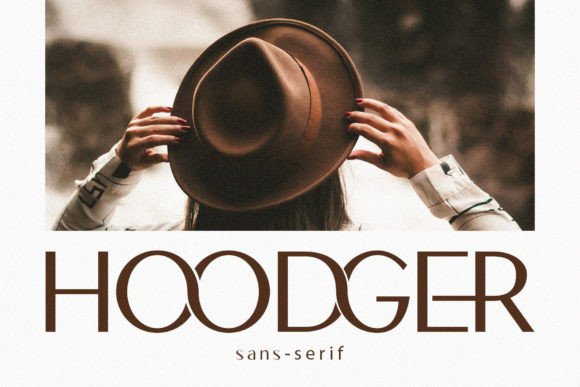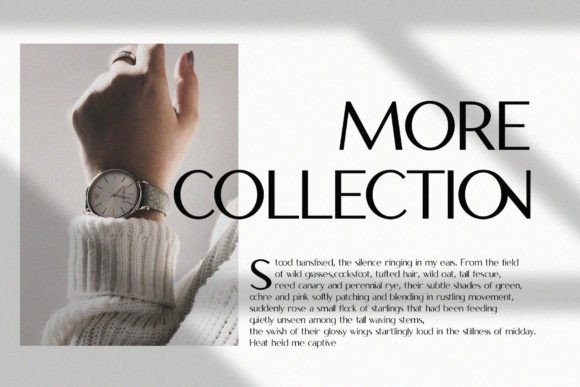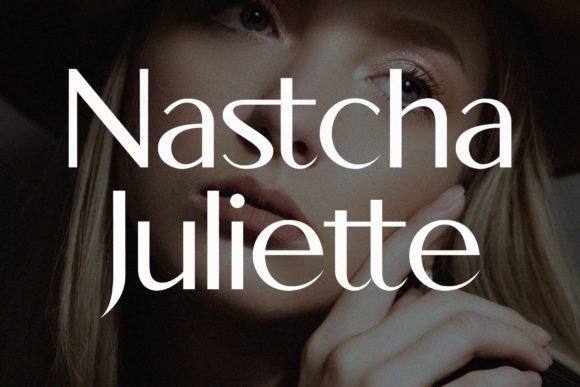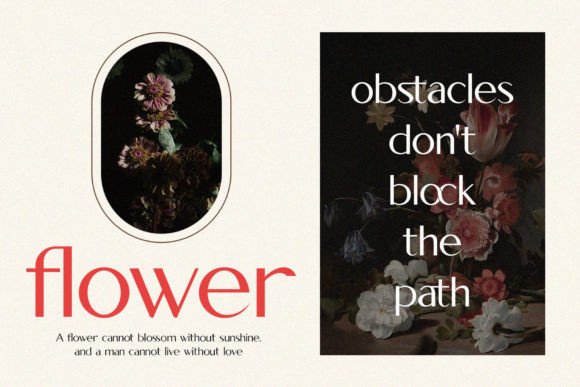
Hoodger Font: Sleek Minimalist Sans Serif for Modern Branding & Logo Design
About the Hoodger Font
Introducing the Hoodger Font, a beautifully crafted typeface designed to elevate your creative projects. Hoodger is a sleek and professional sans serif font that combines modernity and sophistication. Its clean and minimalist letterforms feature sharp edges and balanced proportions, giving it a sense of clarity and efficiency. The font’s sleek and sophisticated design is perfect for anything from branding to editorial design. Hoodger’s professional and elegant style is sure to make a lasting impression.
Hoodger excels in headlines, logos, and short-form text applications such as posters and branding materials where its clean lines and modern aesthetic shine. Its sharp geometry lends itself well to conveying authority and sophistication. However, its minimalist nature makes it less suitable for body copy or lengthy paragraphs; readability suffers at smaller sizes.
For optimal visual impact, pair Hoodger with a warmer serif like Garamond for a classic contrast or a playful script font like Allura for a touch of elegance. A geometric sans-serif like Futura would create a cohesive, modern feel, while a neutral font like Lato offers versatility and balances Hoodger’s strong personality.
The overall personality of Hoodger is sophisticated and assertive, conveying efficiency and modern professionalism. It is ideal for brands aiming for a clean, contemporary image, communicating precision and high quality.